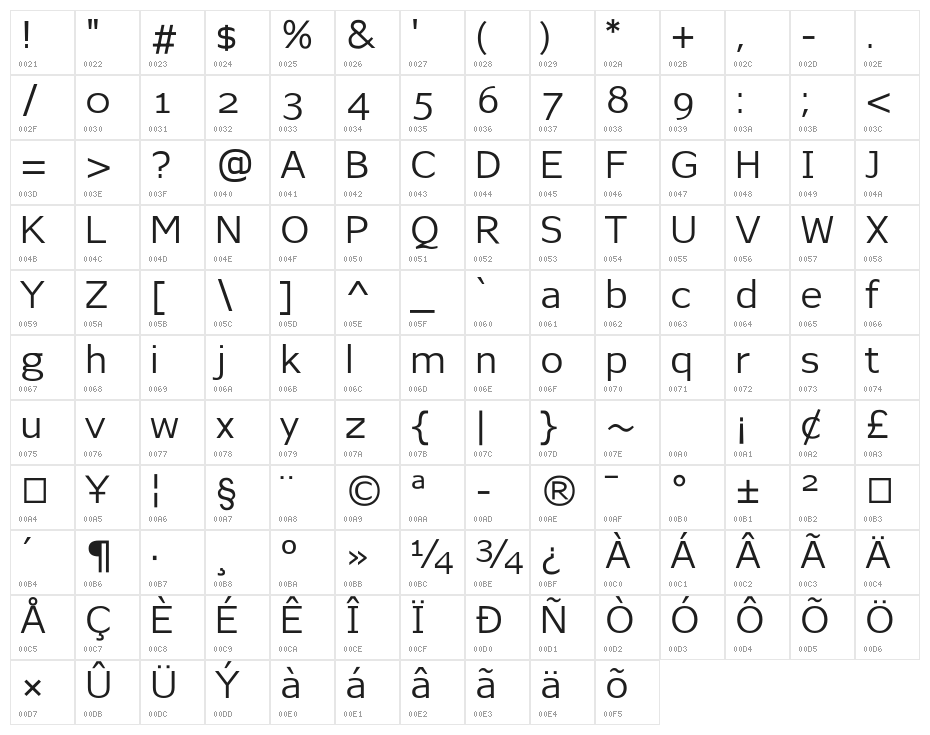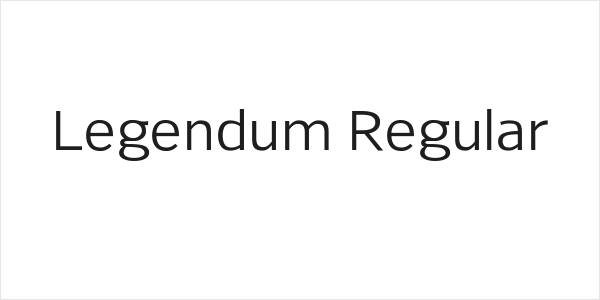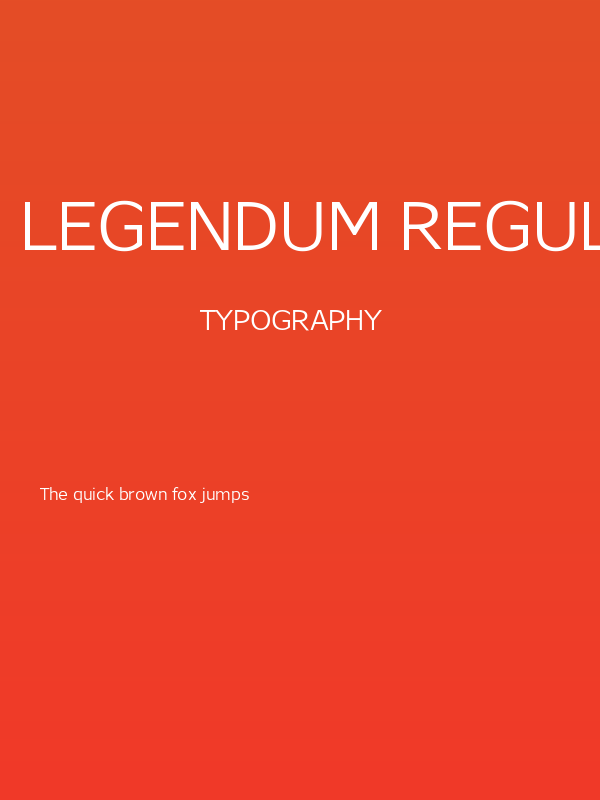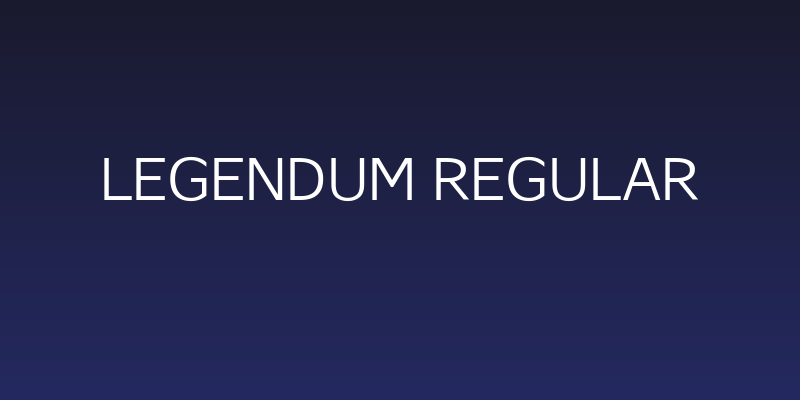
Legendum Regular Font
Legendum Regular Description
This font presents a clean and modern sans-serif design, characterized by its geometric shapes and balanced proportions. The uppercase letters are uniform and bold, providing a strong presence, while the lowercase letters maintain a consistent height and width, ensuring readability. The numerals are clear and distinct, matching the overall style of the alphabet. Special characters are well-integrated, offering versatility for various uses. The font's simplicity and clarity make it suitable for both digital and print media, ensuring legibility across different sizes and formats.